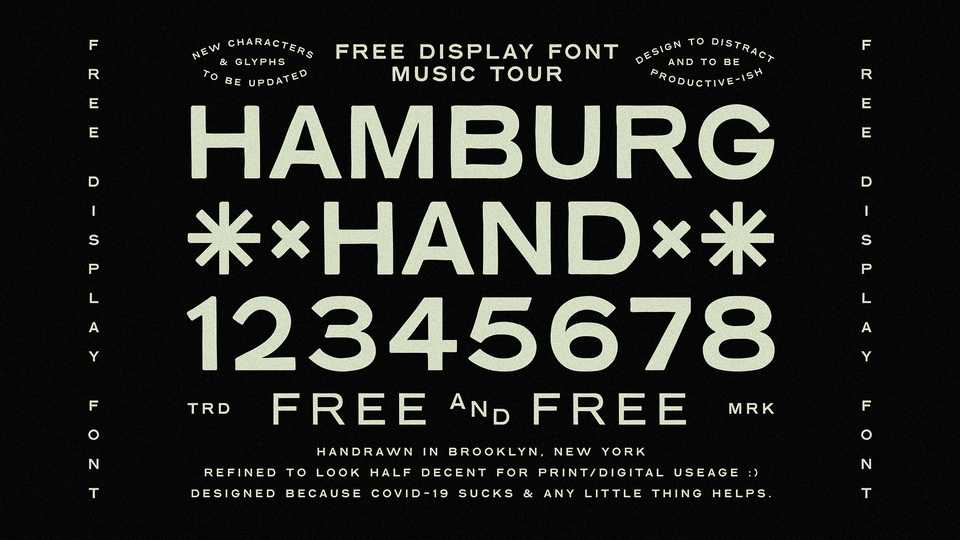
Download Hamburg Hand typeface, a hand-drawn display font family in three weights with refined edges and curves, inspired by German signage & lettering.
Designer: Brandon Nickerson